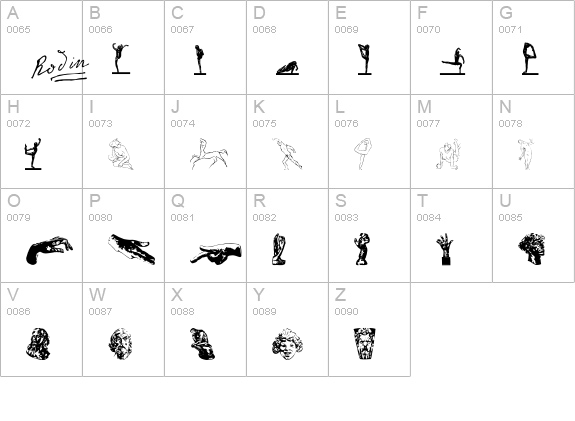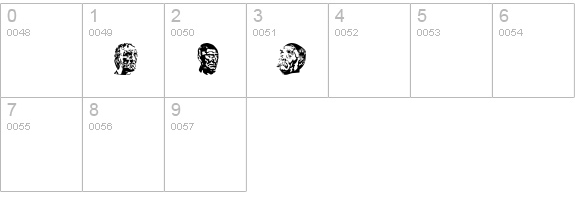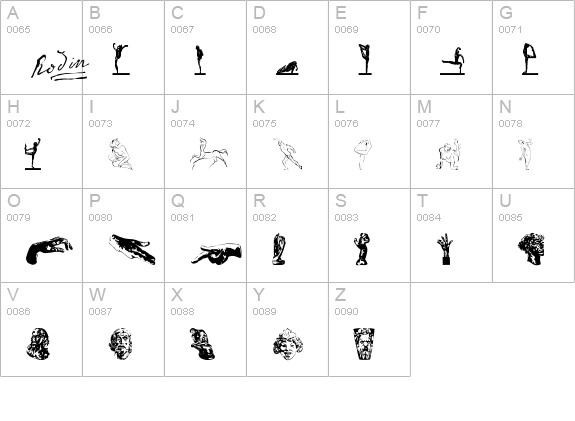
P22RodinExtras Font Details
P22RodinExtras is a remarkable font that encapsulates the timeless elegance and artistic mastery of the renowned sculptor Auguste Rodin. Inspired by Rodin's iconic works of art, this font embodies a sense of fluidity, strength, and beauty that is truly unparalleled. With its intricate and intricate details, P22RodinExtras brings a touch of sophistication to any design project. Its graceful curves and delicate lines create a sense of movement, giving life to each letter and character. Whether used in a logo, a headline, or a body of text, this font is sure to captivate and engage viewers. What sets P22RodinExtras apart is not just its impeccable design, but also its accessibility. It is freely available to download at FontsMarket.com, allowing designers and enthusiasts alike to effortlessly incorporate this stunning typeface into their creative endeavors. This accessibility ensures that anyone can experience the beauty and versatility of P22RodinExtras, regardless of their budget or resources. So, whether you are a professional designer searching for the perfect font to elevate your next project or an aspiring artist looking to experiment with typography, P22RodinExtras is the ideal choice. With its timeless appeal, artistic flair, and the added bonus of being freely available to download at FontsMarket.com, this font is truly a must-have for any creative individual seeking to make a lasting impression.